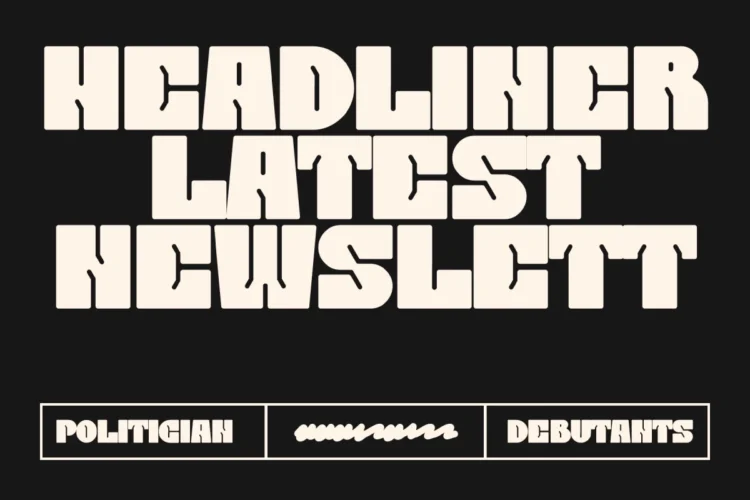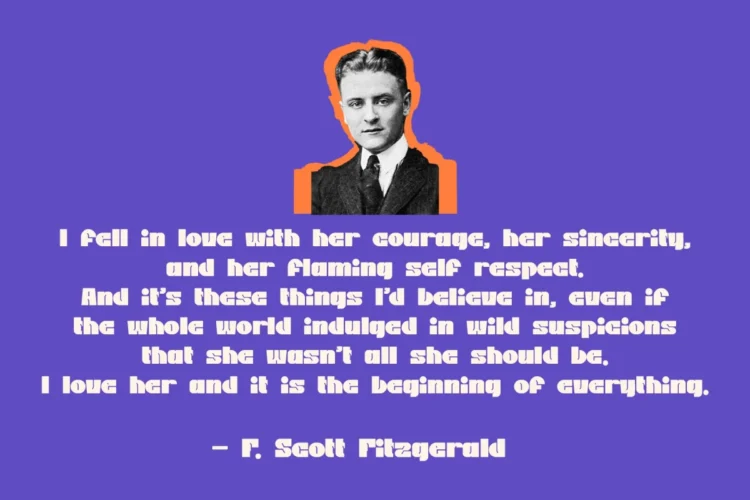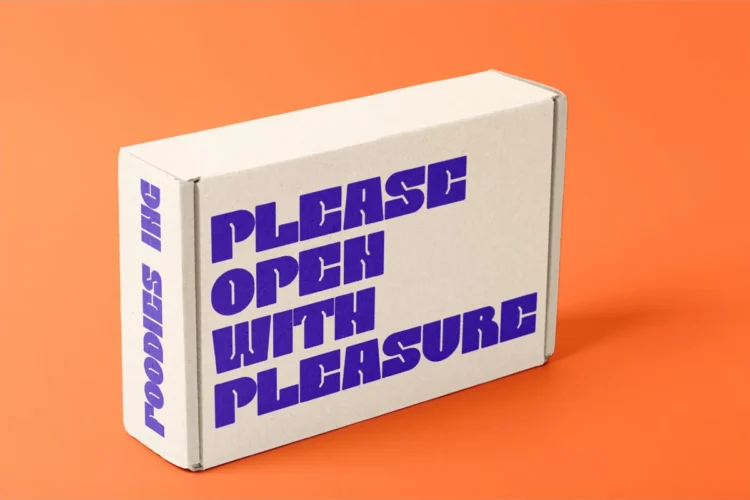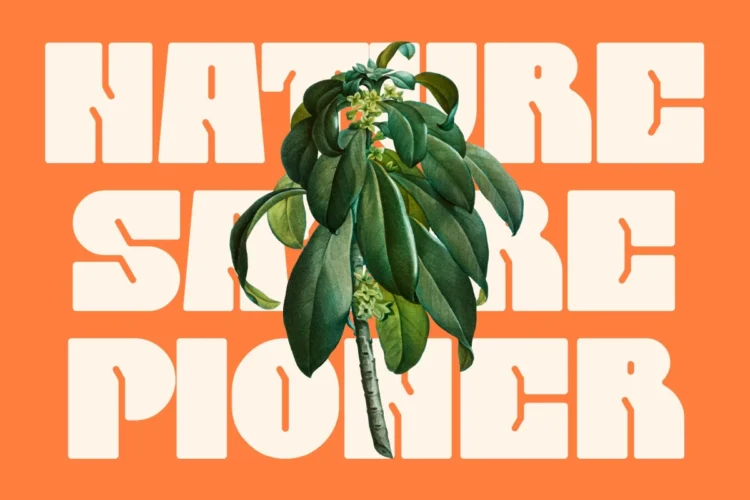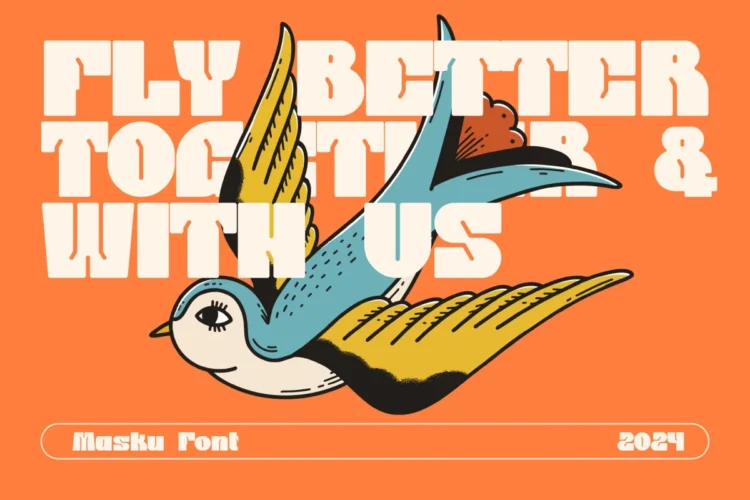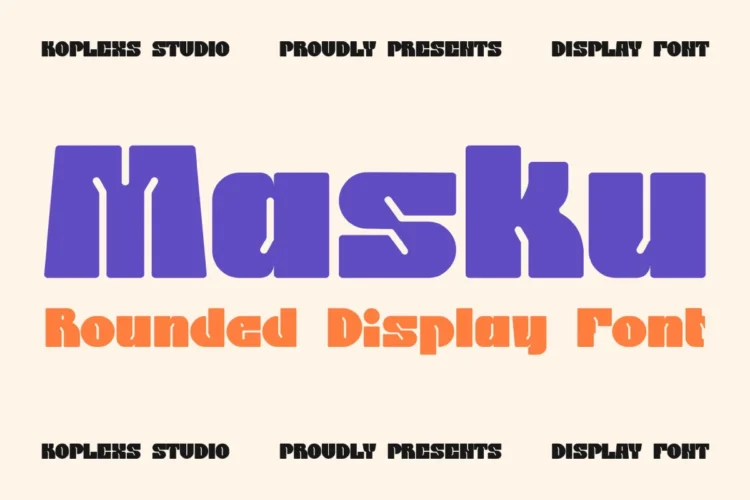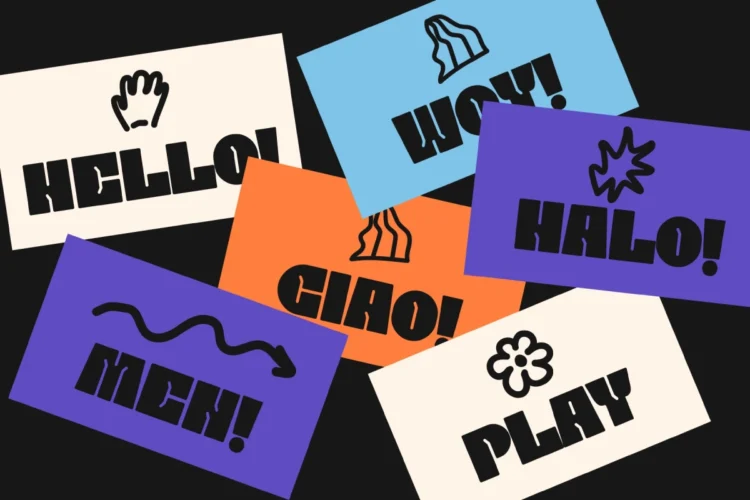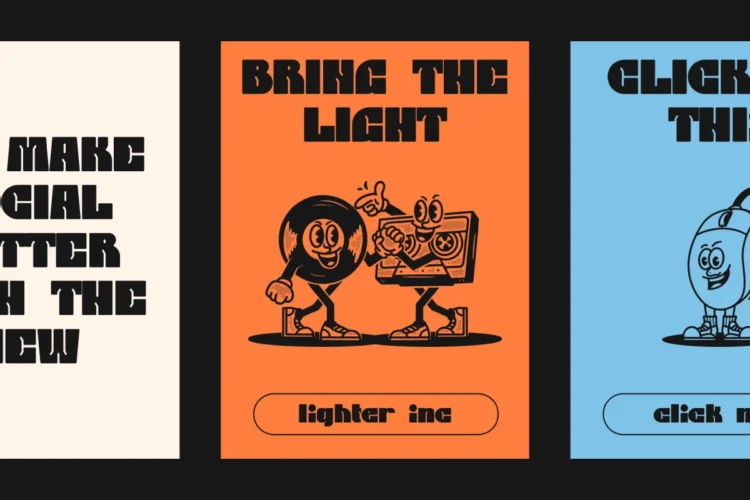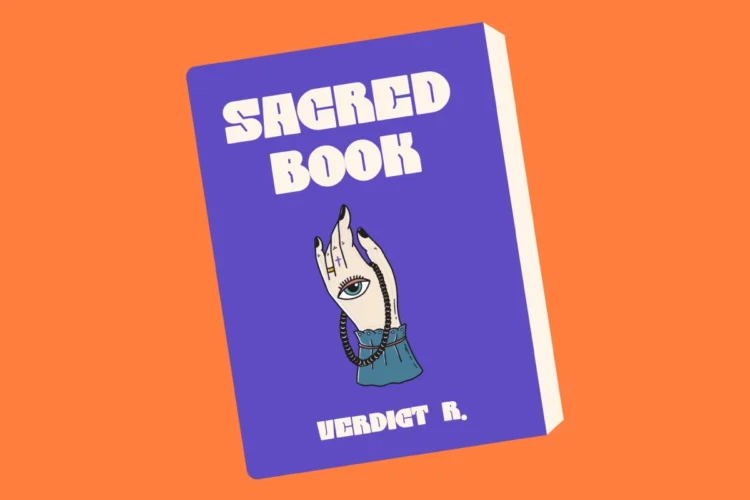
✨ Masku Font – Bold, Chunky, and Modern Display Font for Creative Branding ✨
Masku Font is a bold font with a unique display style, designed to grab attention and make every word stand out. As a sans serif font, it delivers a clean yet powerful personality, blending modern font aesthetics with a touch of classic font charm.
This chunky font is perfect for designers seeking a cool font that combines playfulness and strength. Whether you’re creating a logo font or a headline font, Masku Font offers outstanding versatility for both print and digital media.
Masku Font works beautifully as a branding font, poster font, cover font, or even as an elegant font for high-impact campaigns. Its bold curves and geometric proportions make it ideal for eye-catching visuals and creative typography.
Masku Font is versatile and works beautifully for :
- Logo Design & Brand Identity
- Posters, Flyers & Event Graphics
- Packaging & Product Design
- Social Media Visuals
- Magazine & Book Covers
- Headlines, Titles & Signage
✨Masku Font Features:
- Bold, rounded display type
- Modern sans serif style
- Excellent readability at all sizes
- Works well for retro, pop, and creative themes
Make your design speak louder with Masku Font the goods font for bold creativity and timeless impact.